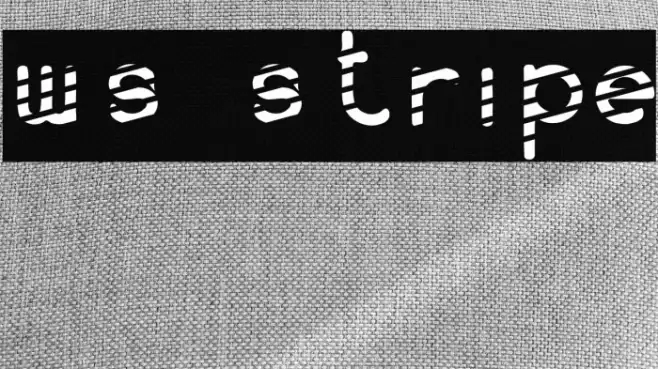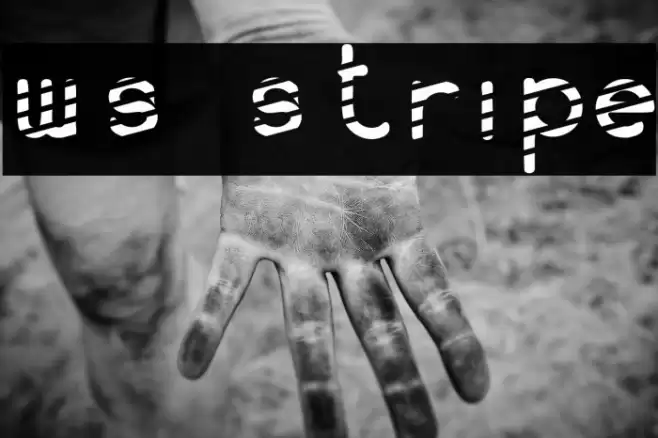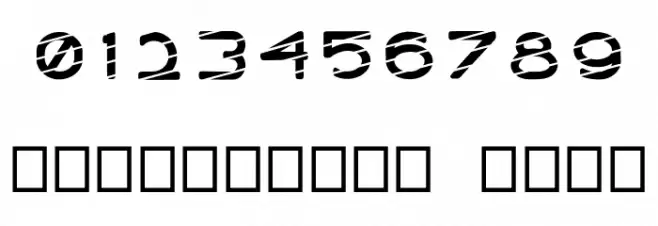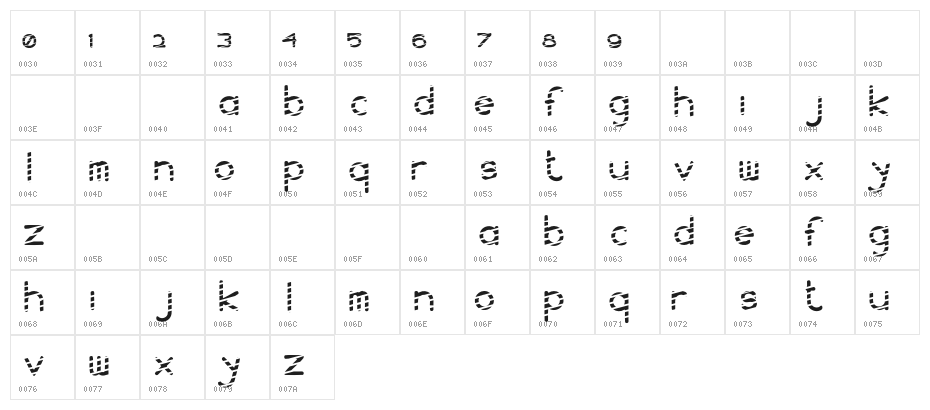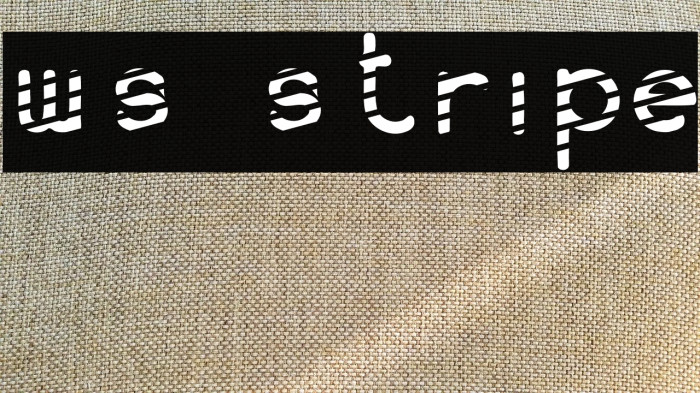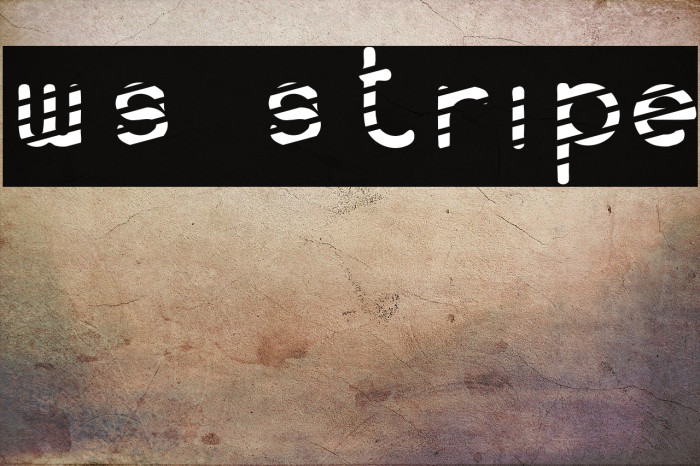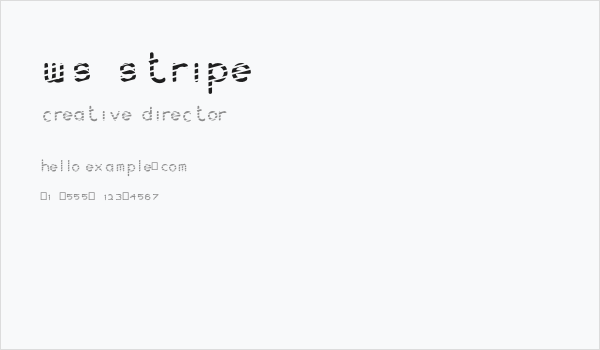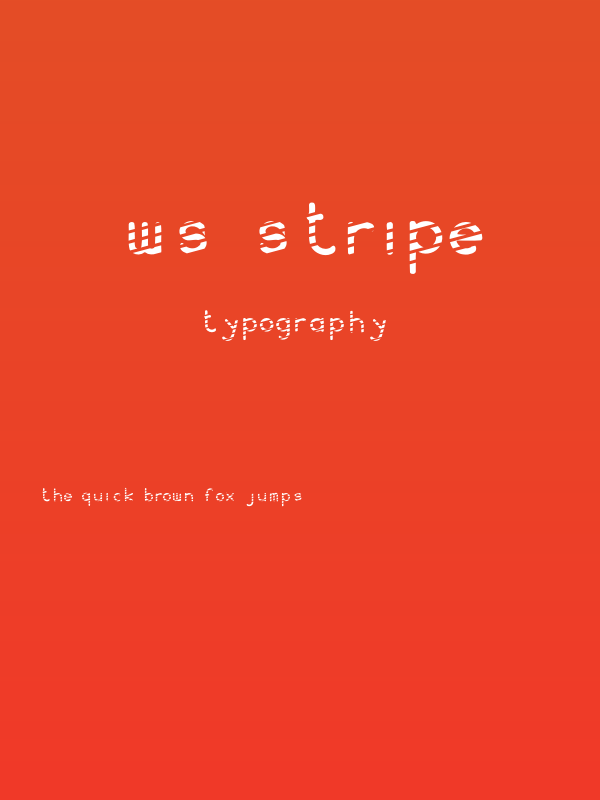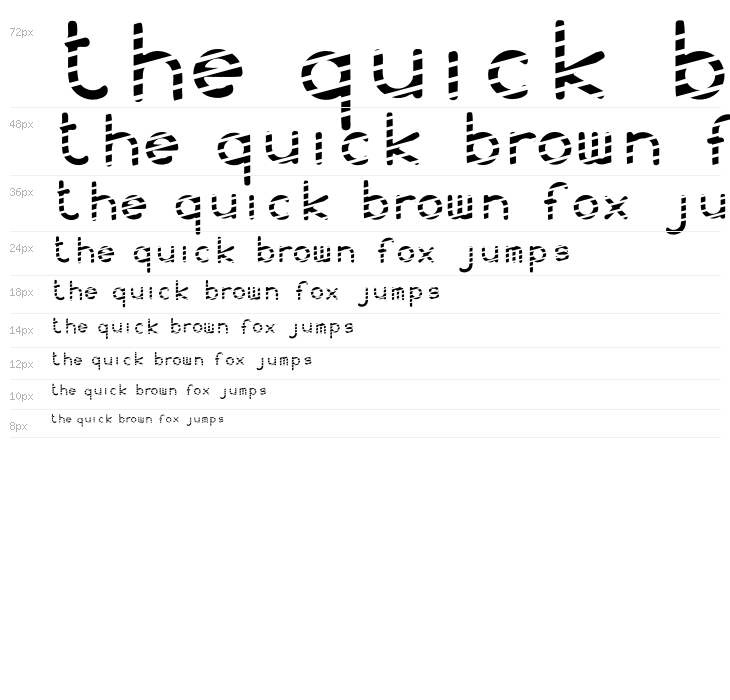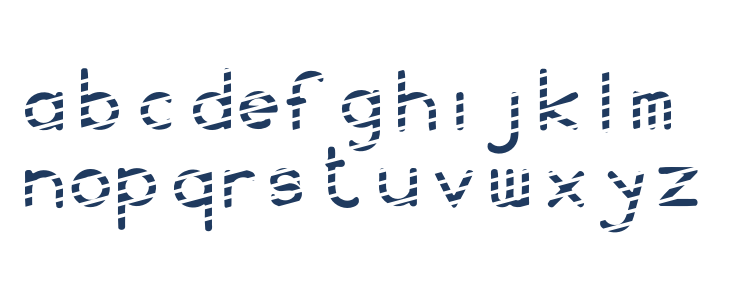
WS Stripe Font
WS Stripe Description
This font features a unique striped pattern across each character, giving it a dynamic and modern appearance. The letters are sans-serif with a geometric structure, creating a clean and contemporary look. The stripes run diagonally, adding a sense of movement and energy. This design choice makes the font particularly eye-catching and suitable for creative projects. The numbers and special characters follow the same striped pattern, ensuring consistency throughout the typeface. The overall style is bold and distinctive, making it ideal for attention-grabbing headlines or branding materials.
A modern, striped sans-serif font with a dynamic and eye-catching design from Uncategorized fonts.
- Proposed Projects: Ideal for branding, advertising, posters, and any project needing a bold, modern touch.